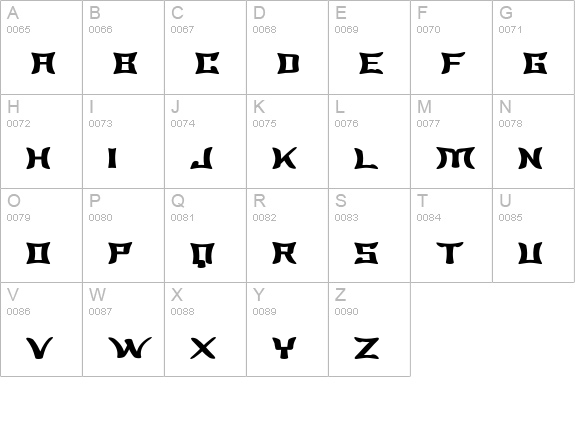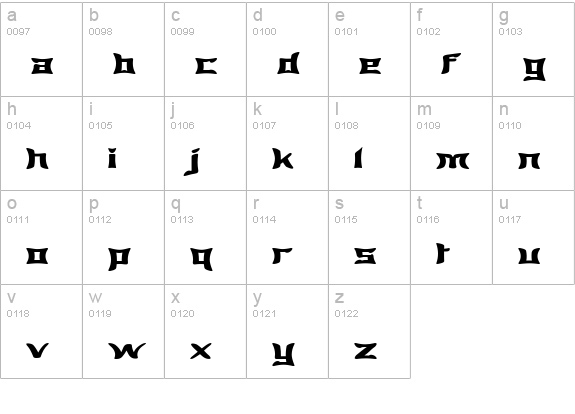
Wewak Wide Font Details
Wewak Wide is a distinctive, extended-width variant in the Wewak typeface family \xE2\x80\x94 well suited to design and typography projects.
Introducing Wewak Wide font, a modern and stylish typeface that exudes sophistication and elegance. This versatile font is perfect for a wide range of design projects, from branding to packaging to web design. With its clean lines and unique character shapes, Wewak Wide font is sure to make your text stand out. What's even better is that Wewak Wide font is available for free download at FontsMarket.com. That's right, you can access this stunning font at no cost and elevate your design projects with its sleek and contemporary look. Don't miss out on the opportunity to enhance your creative work with Wewak Wide font, a true gem in the world of typography.